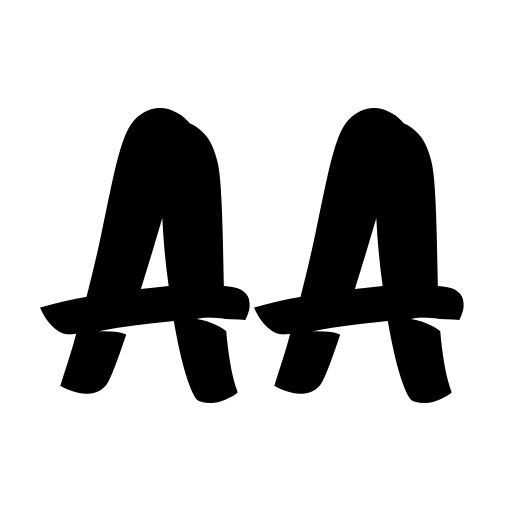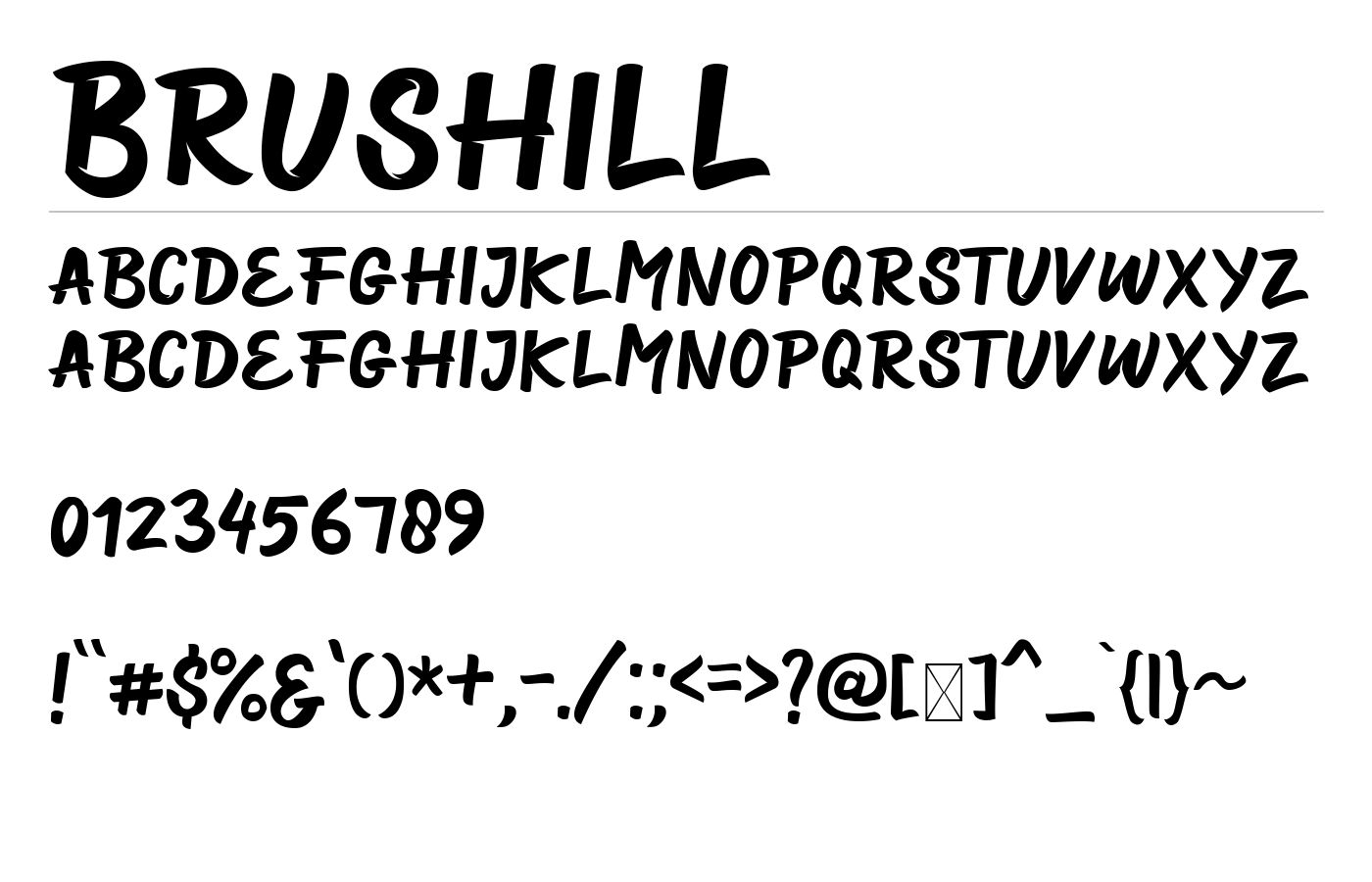
Brushill is a lively, bold brush script font with a casual and playful character, featuring smooth, rounded strokes that mimic hand-painted lettering. Its strong presence and energetic flow make it ideal for creative projects, logos, and headlines that seek a friendly, informal vibe. This font works well in branding and packaging where a personal, approachable feel is desired.
Brushill Font
About Brushill Font